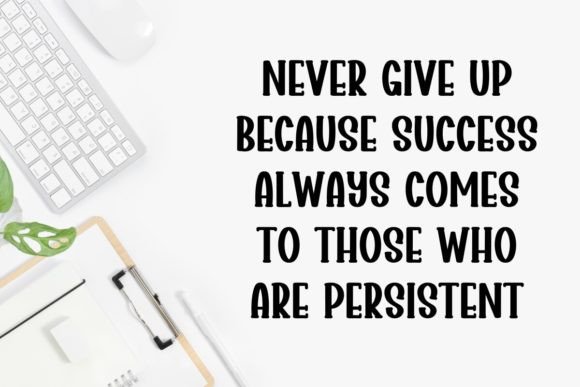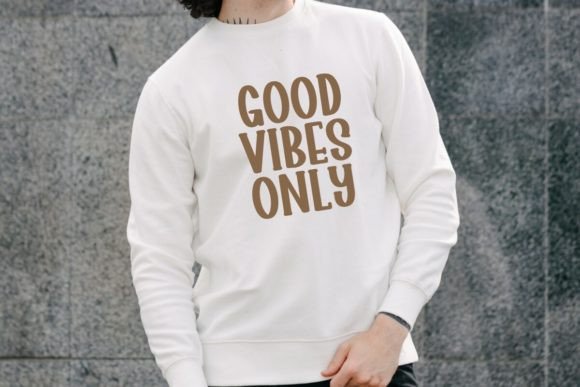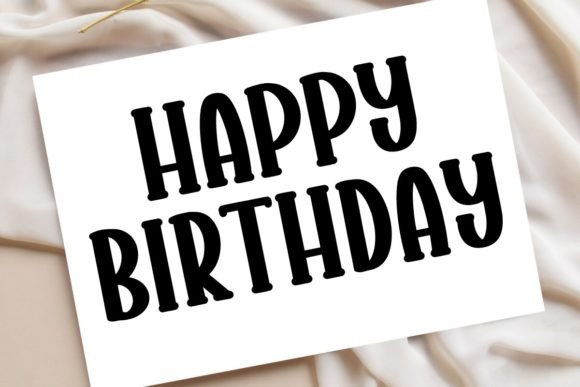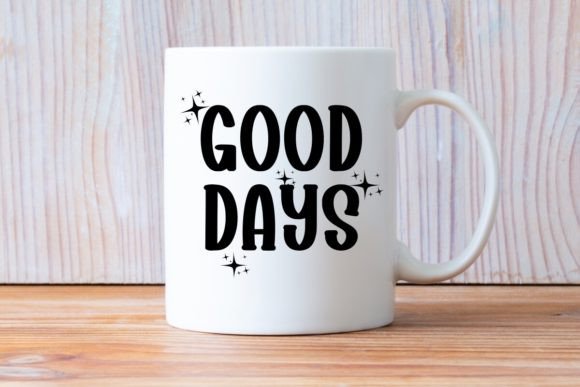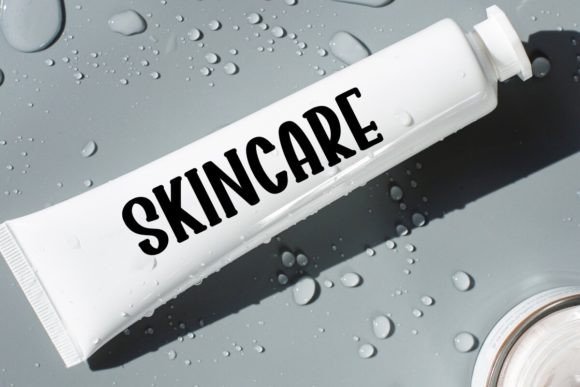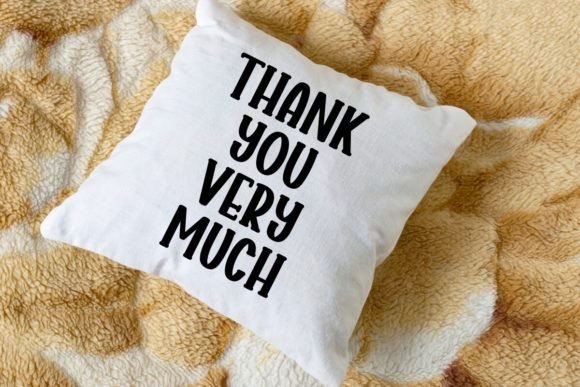
Introduction to Pingin Camping Font
Pingin Camping is a thick and playful slab serif font.
The wide characters and chunky serifs make this font ideal for eye-catching designs You can use it for headlines, t-shirt typography, banners, product labels, and many more.